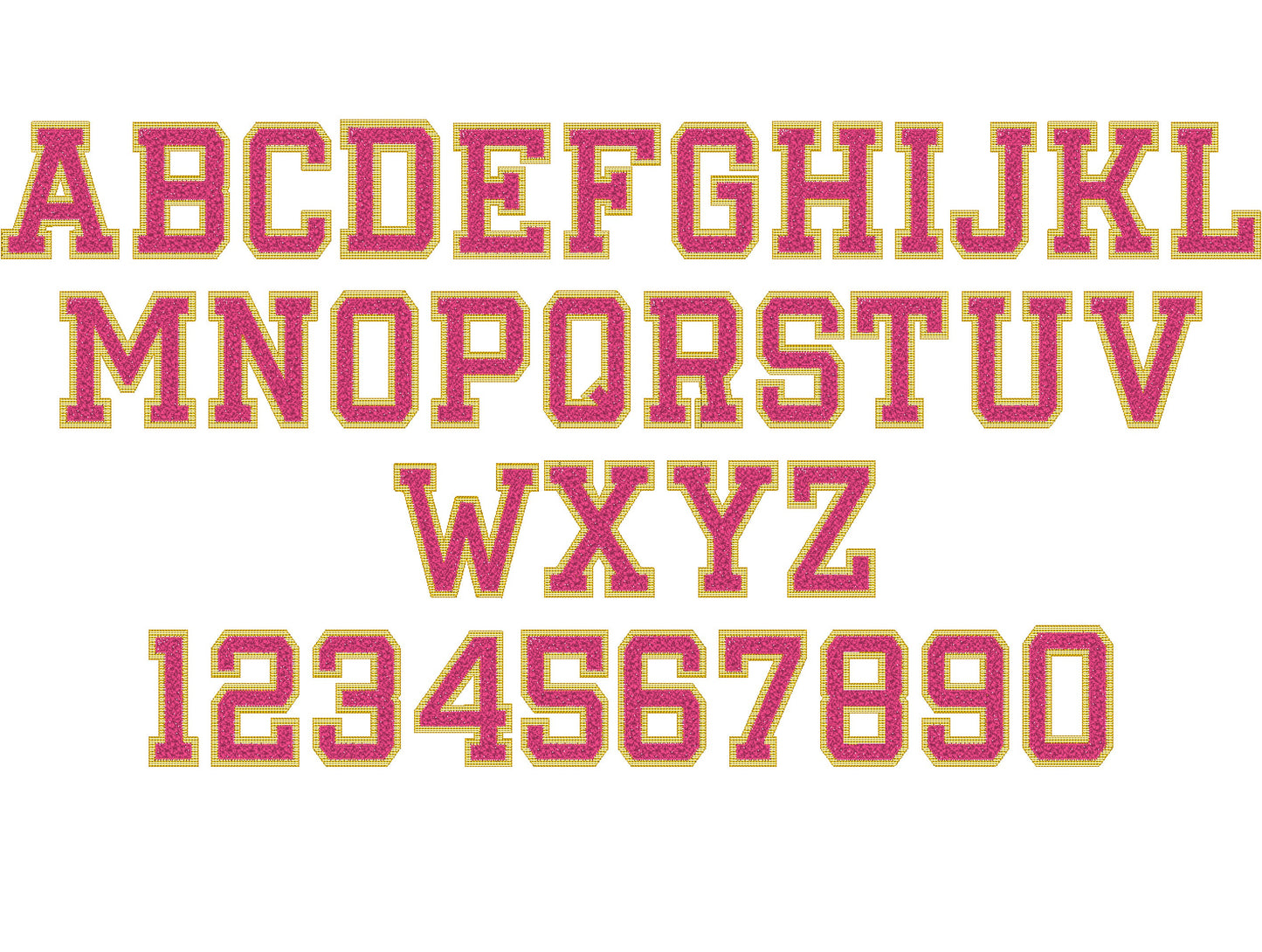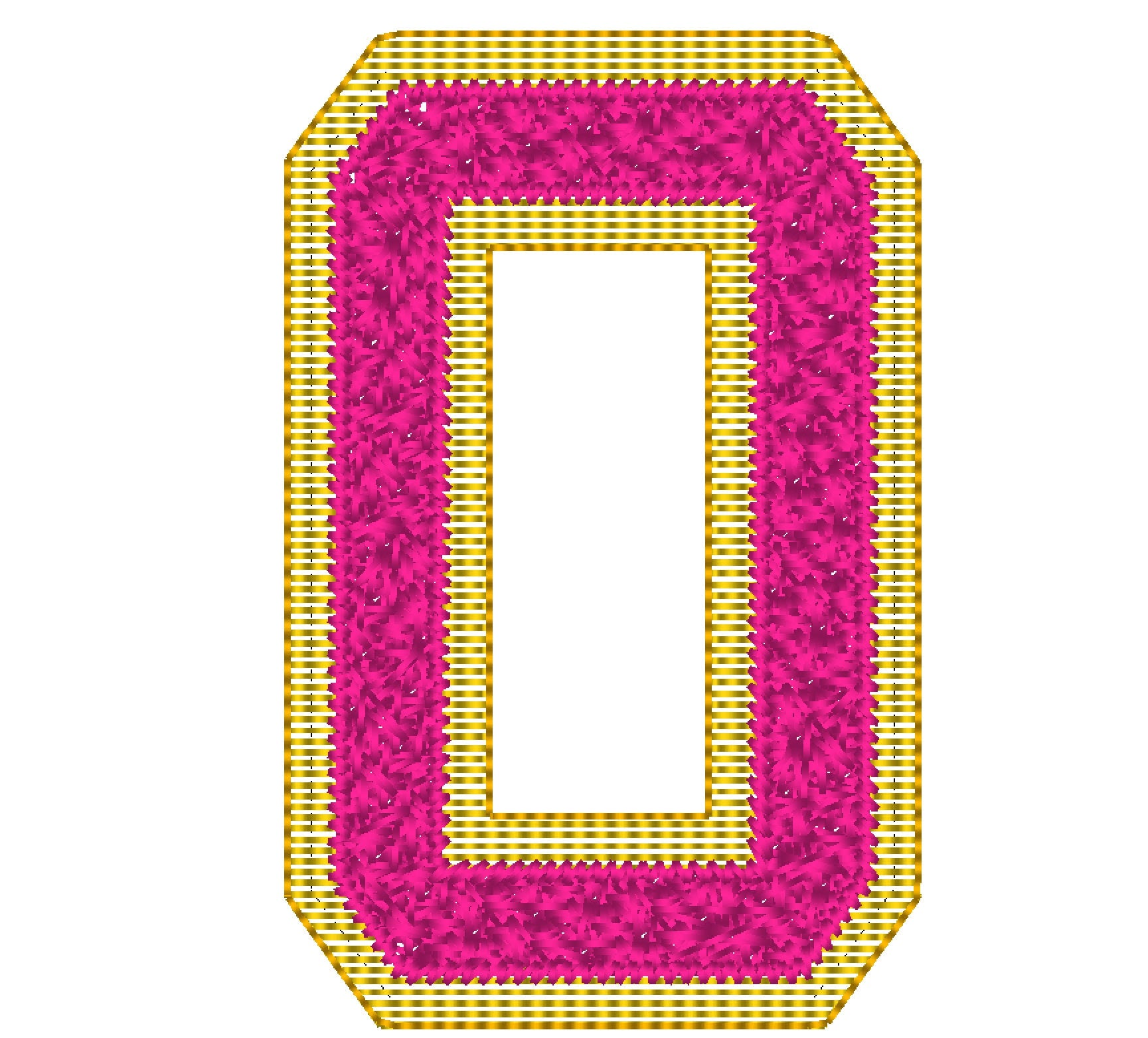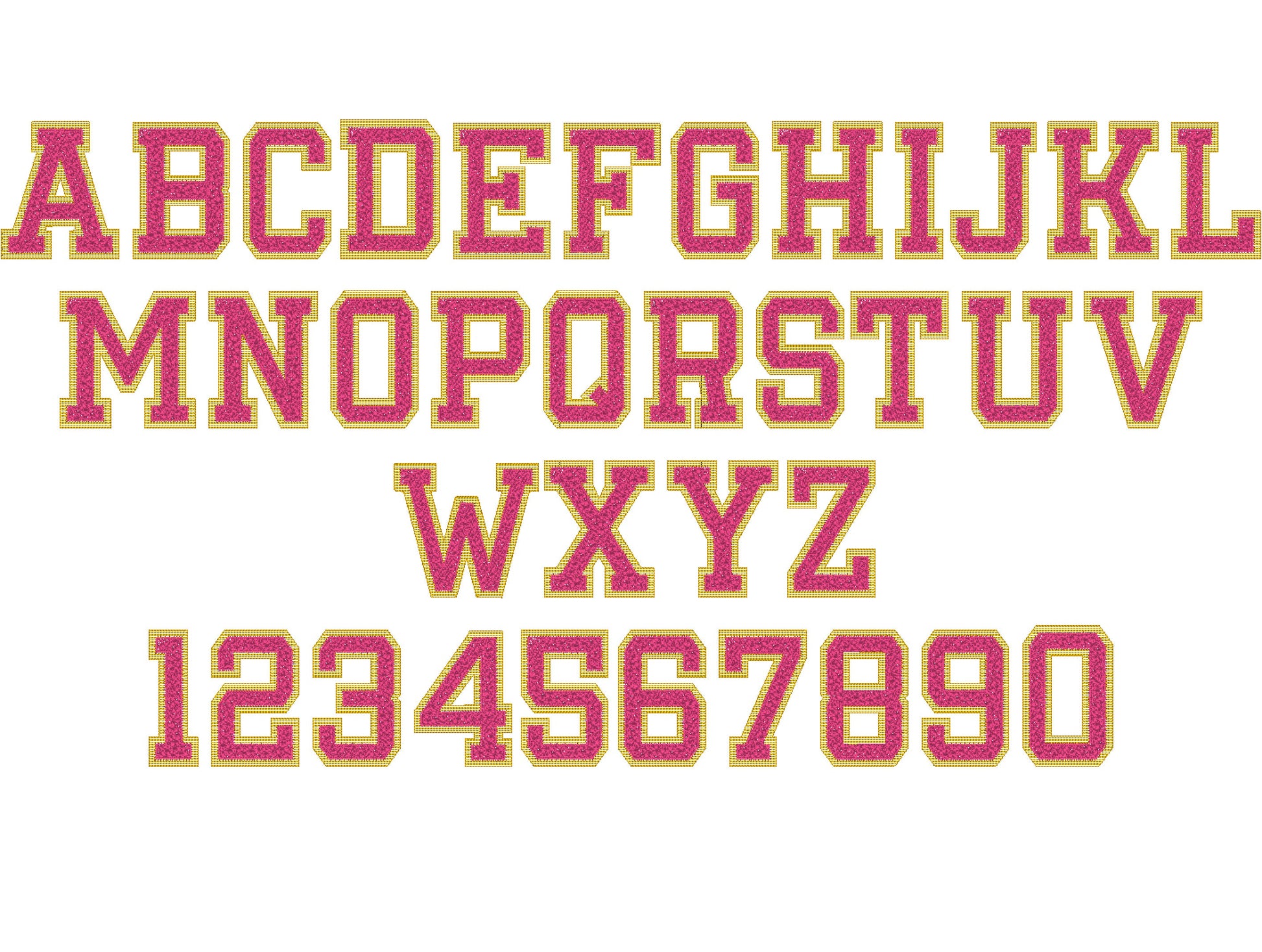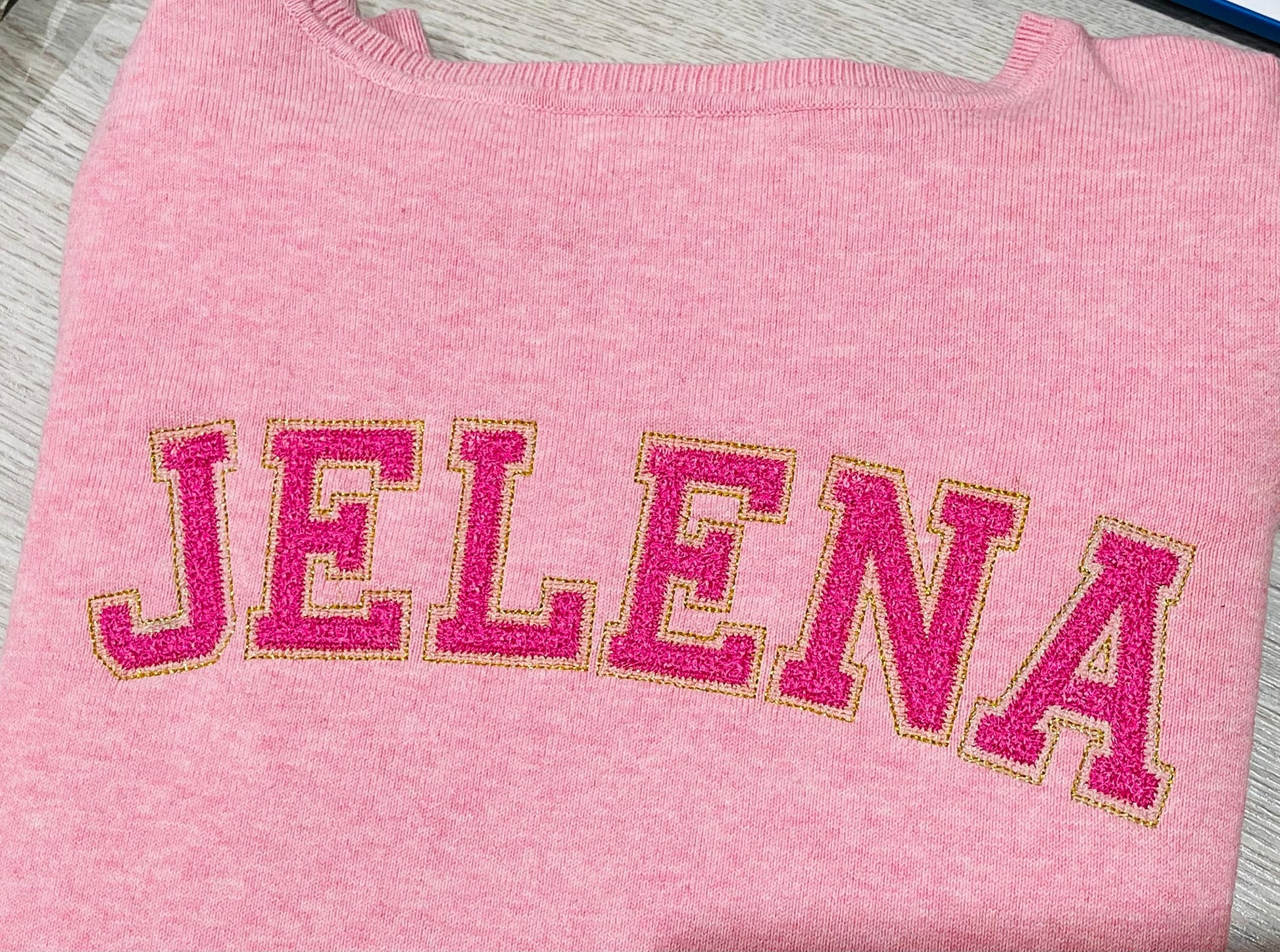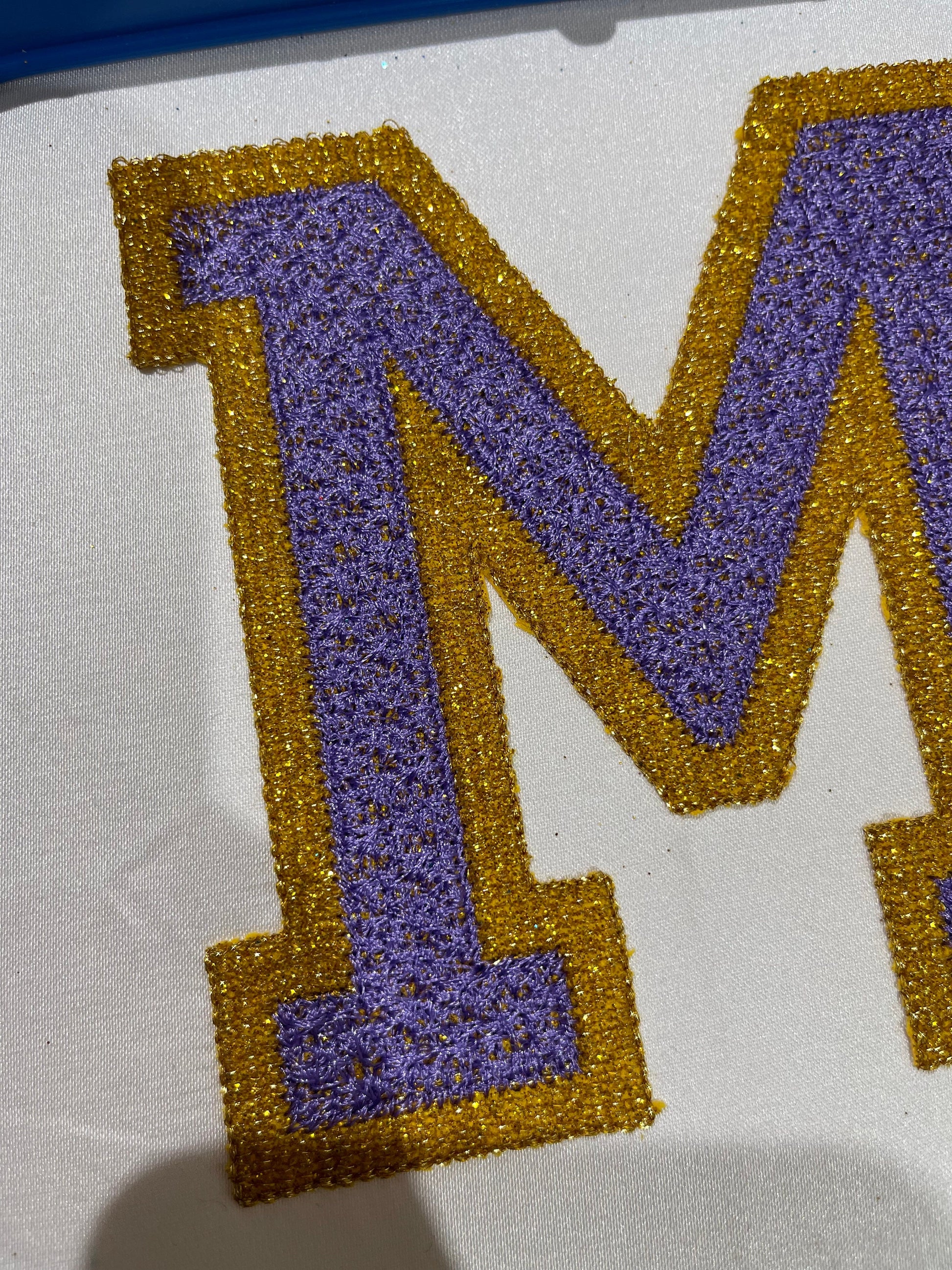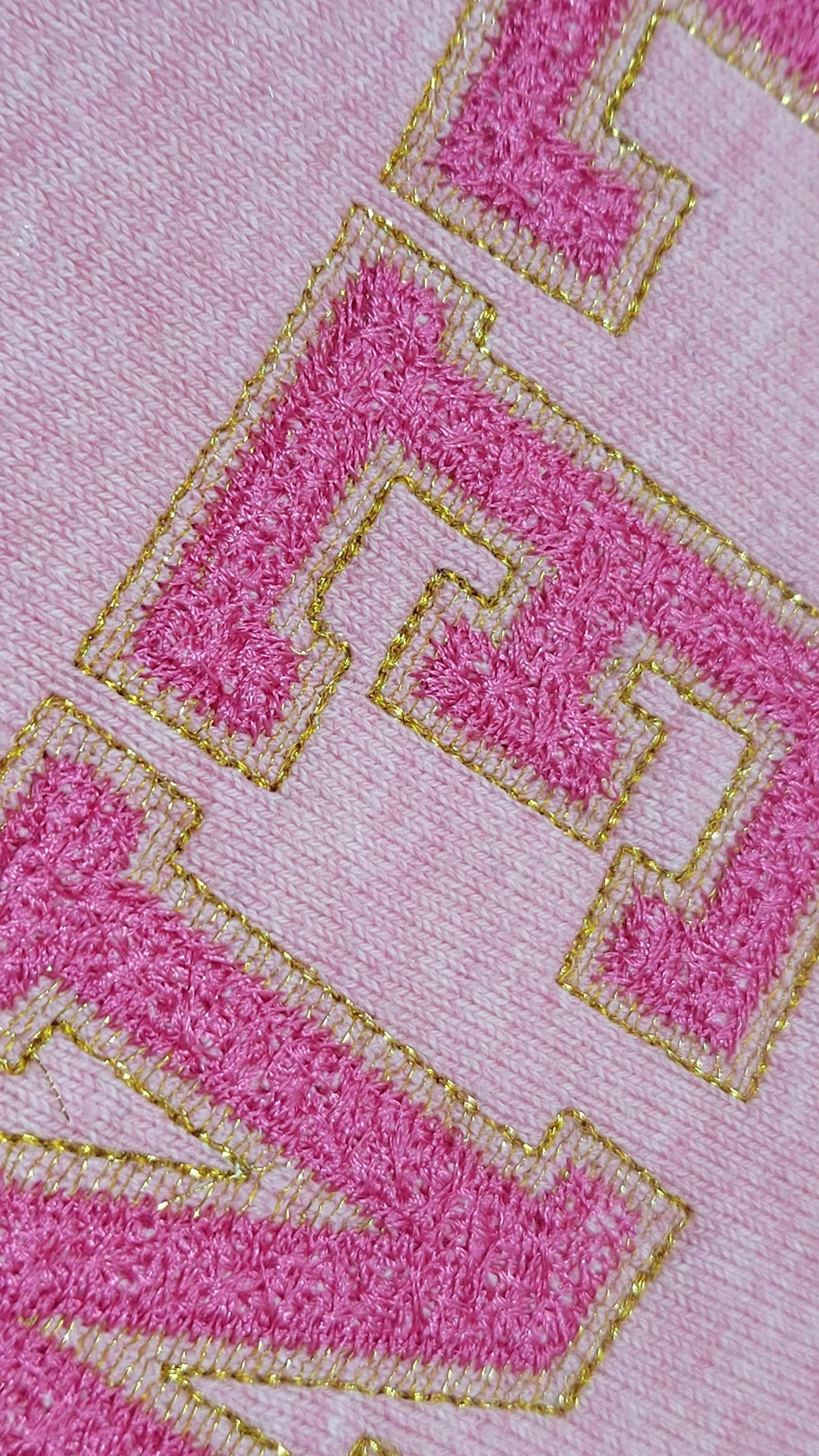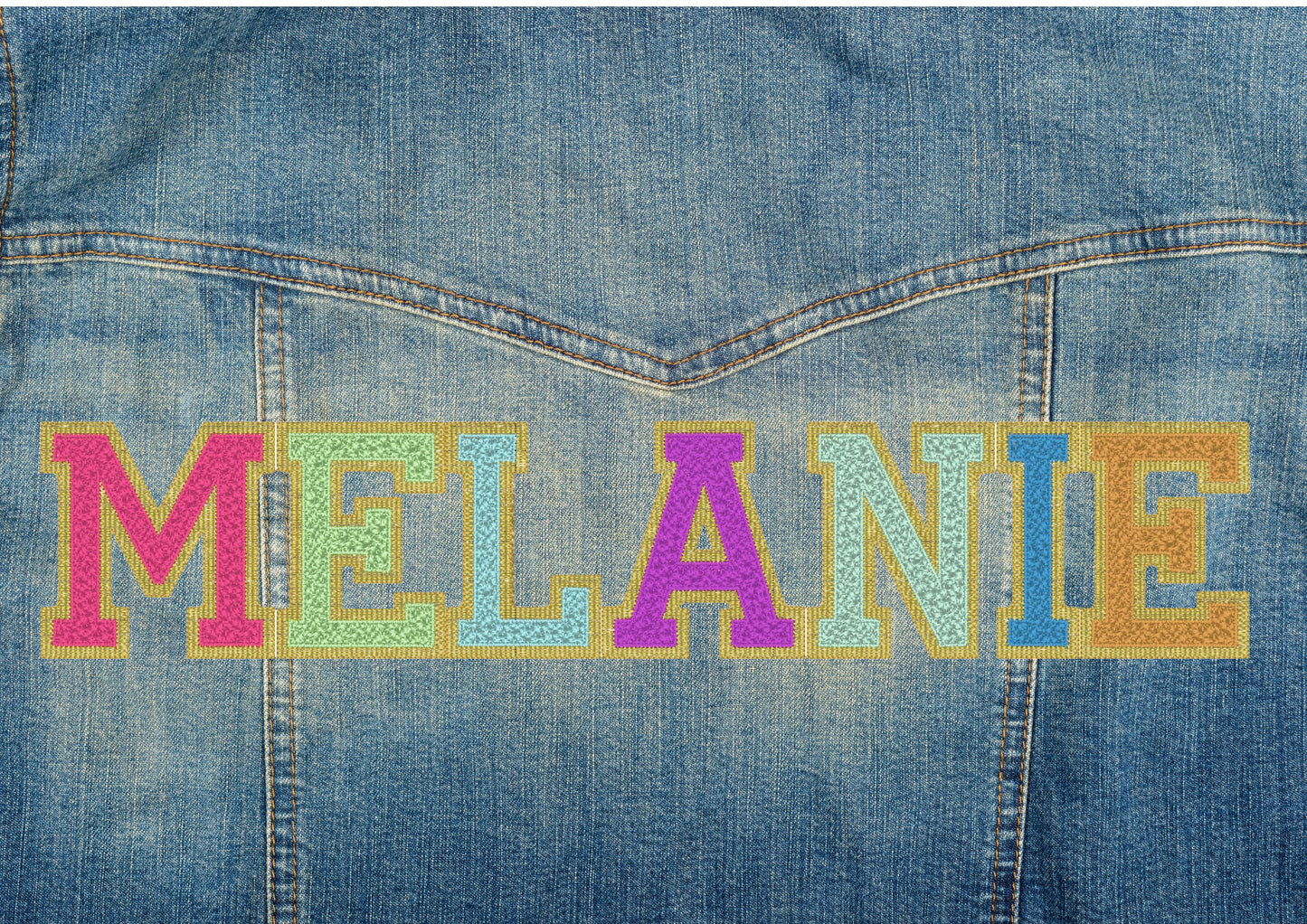
Or click to open the linkA faux chenille athletic varsity font made for glitter heat transfer vinyl or mylar. Sparkly for team shirts, sweatshirts and school spirit wear.
Capital letters A to Z and numbers 0 to 9 in five sizes: 2.5, 3, 3.5, 4 and 4.5 inches. Mylar can be torn away, and glitter vinyl torn or trimmed along the edges.